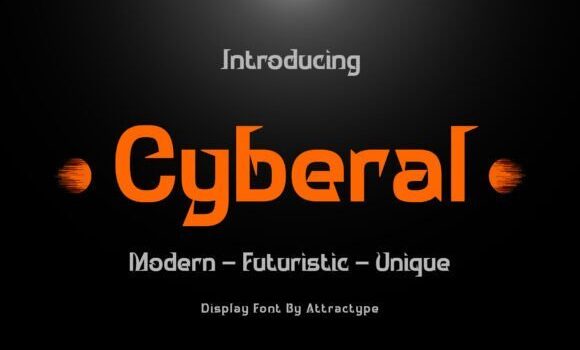
cyberal
Cyberal Font – Free Download Introduction to Cyberal Font Cyberal is a sleek and modern font with a futuristic look. 📸 Preview Gallery 6 images 📌 Product Name Cyberal Font 👤 Author attractype 📂 Category Explore ⬇️ Download Cyberal Font